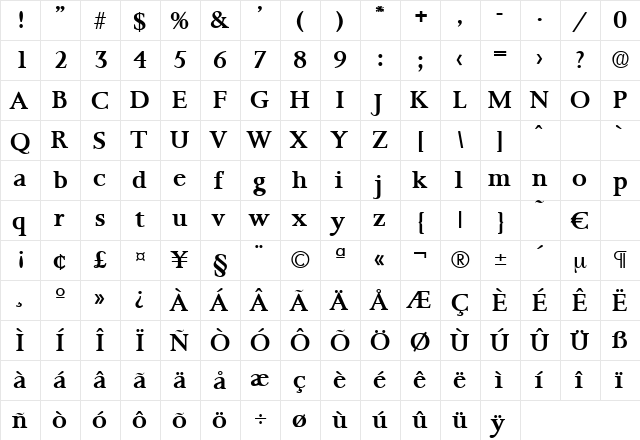
Palermo-Medium Regular
Design Context for Palermo-Medium Typeface
Palermo-Medium takes a measured approach to typography — its balanced proportions and neutral character make it a reliable workhorse for both digital and print work.